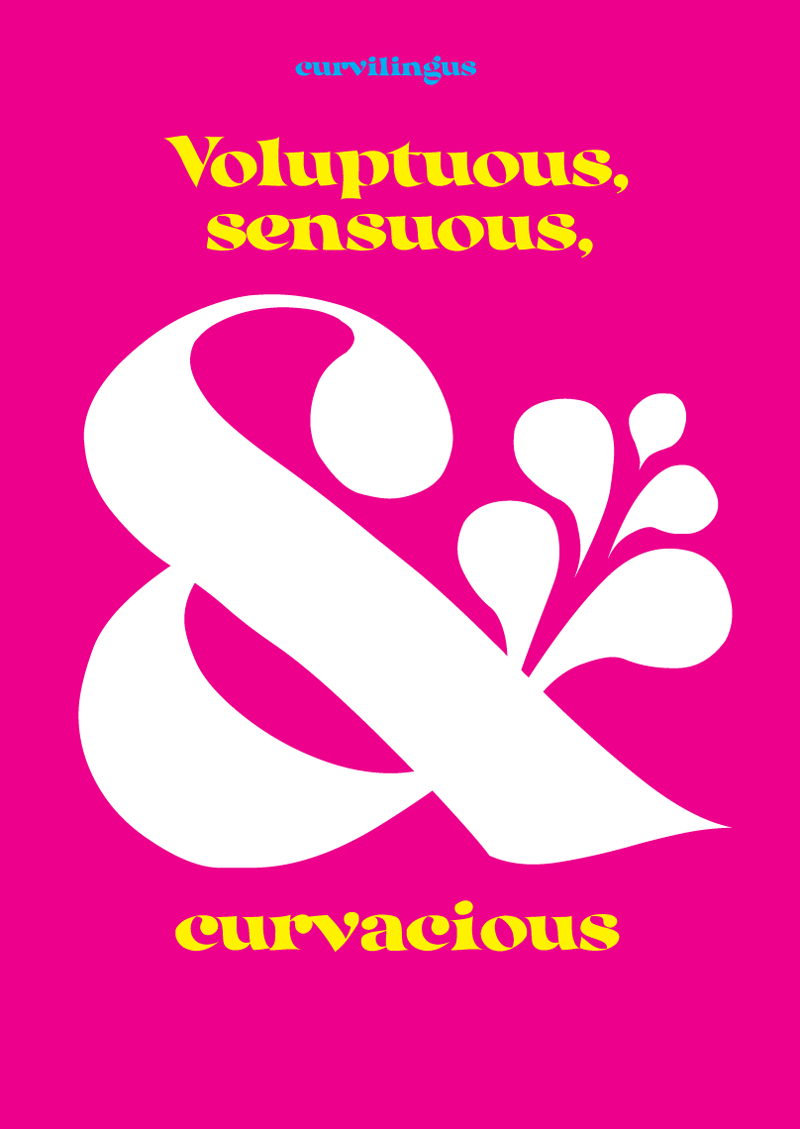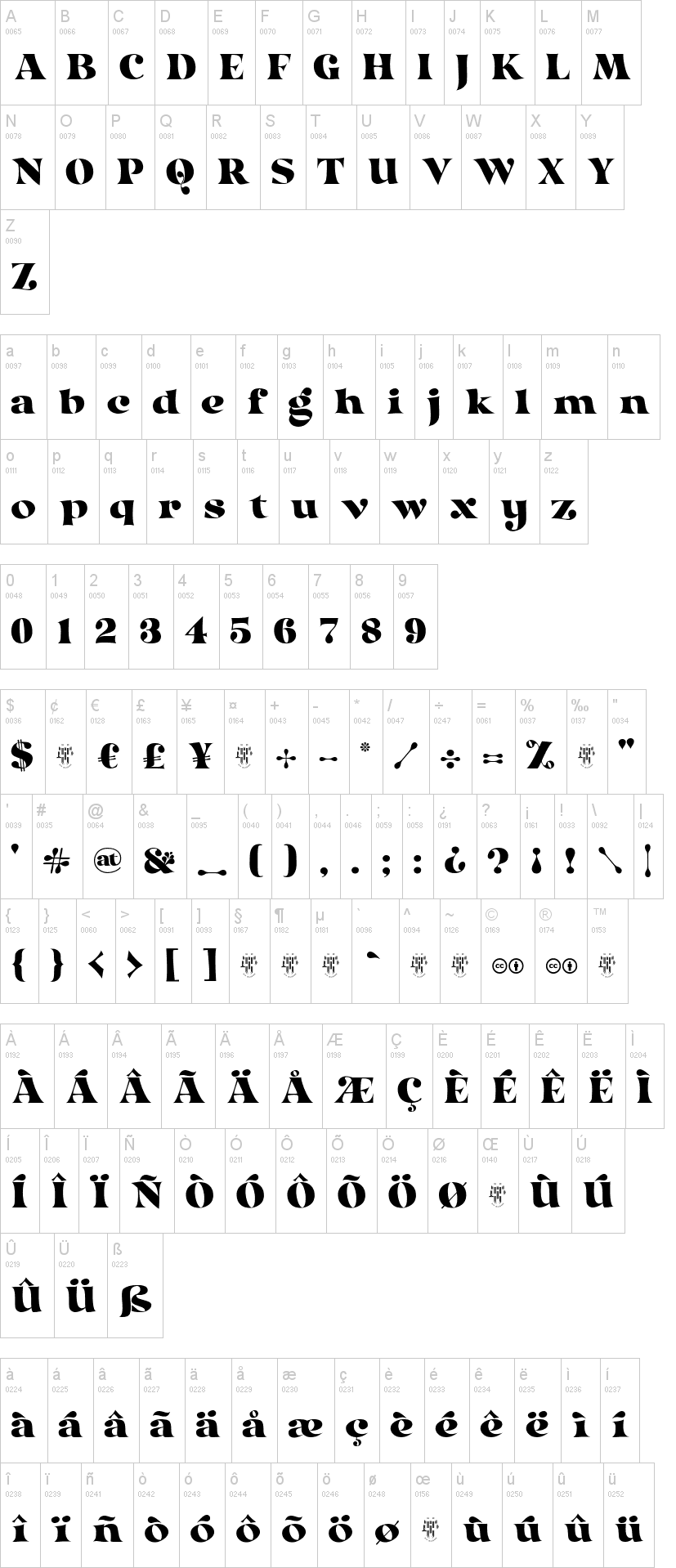
Note of the authorA font based on the letters I usually doodle on paper. Imperfect, all over the place, but fun, curvacious and sexy! Or as one Redditor put it: 'It has love handles!'